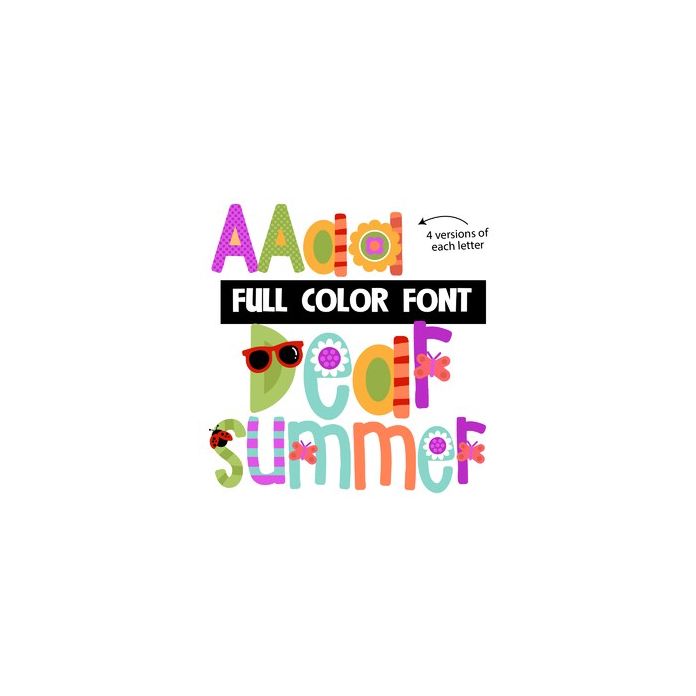
This full-color font features colorful lettering and summer imagery throughout. There is a secondary upper and lowercase that you can access through Silhouette's glyph map.